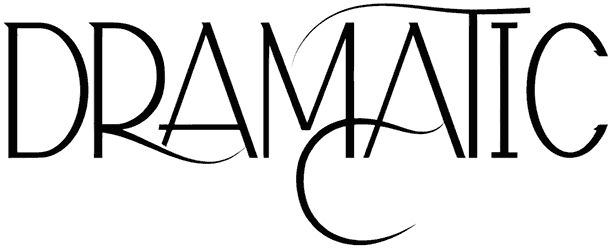
Dramatic Font
Elegant, classy, and delicate are the only suitable words we could find for describing a majestic luxury fonts such as Dramatic which comes with a sense of modernity, softness, and professionalism. Although this all-caps typeface doesn’t support numbers and punctuations, it has the true ability to take your posters, logos, social media posts, presentations, and flyers to the next level.